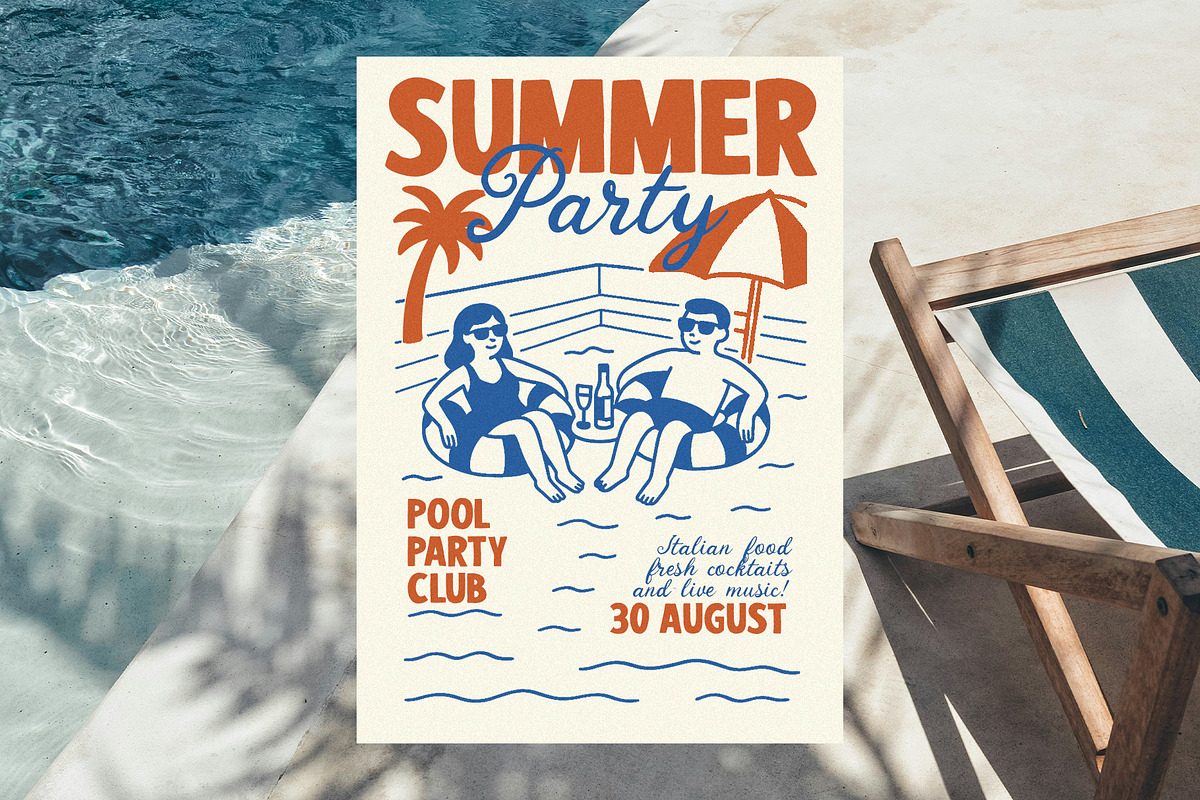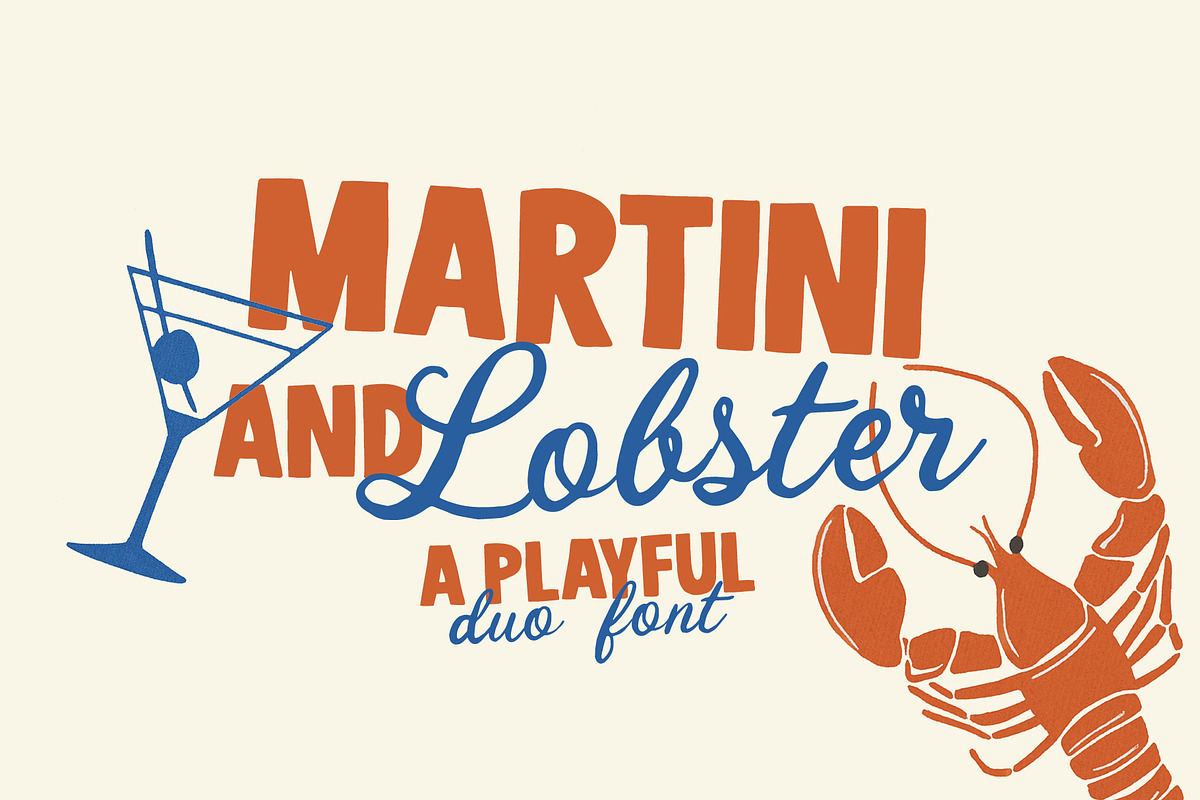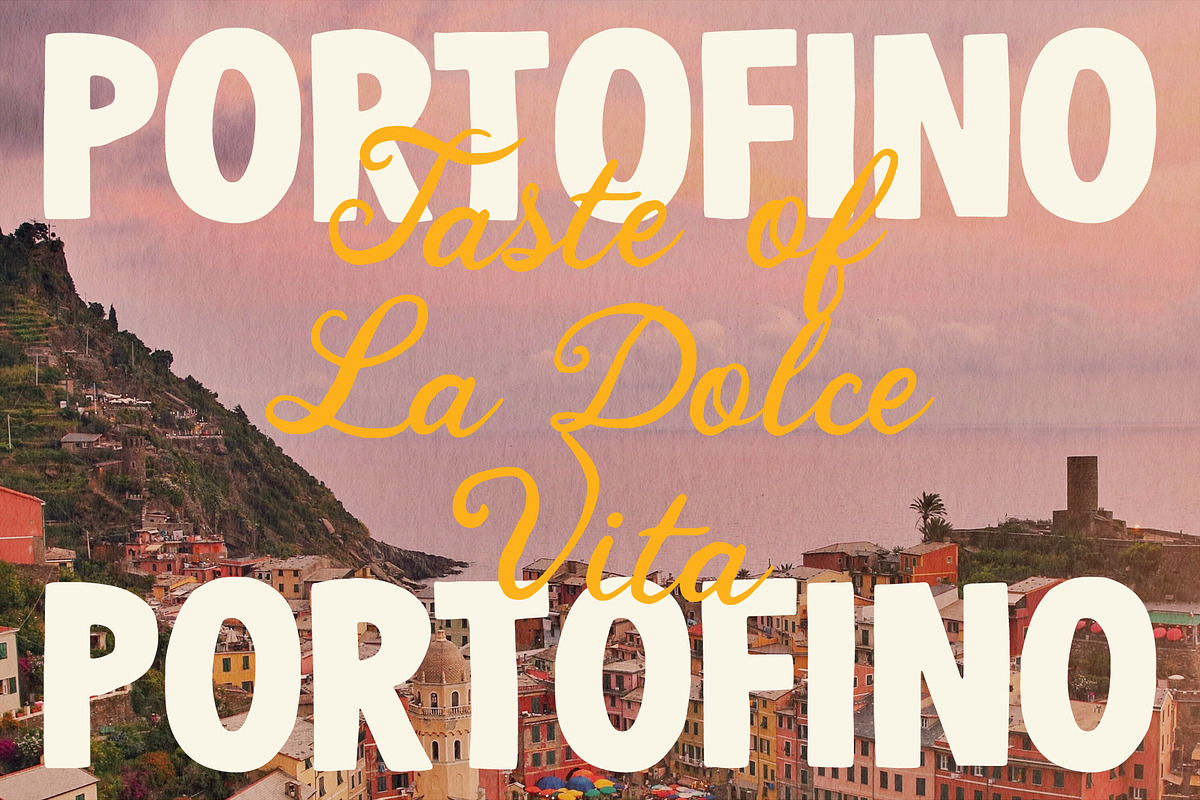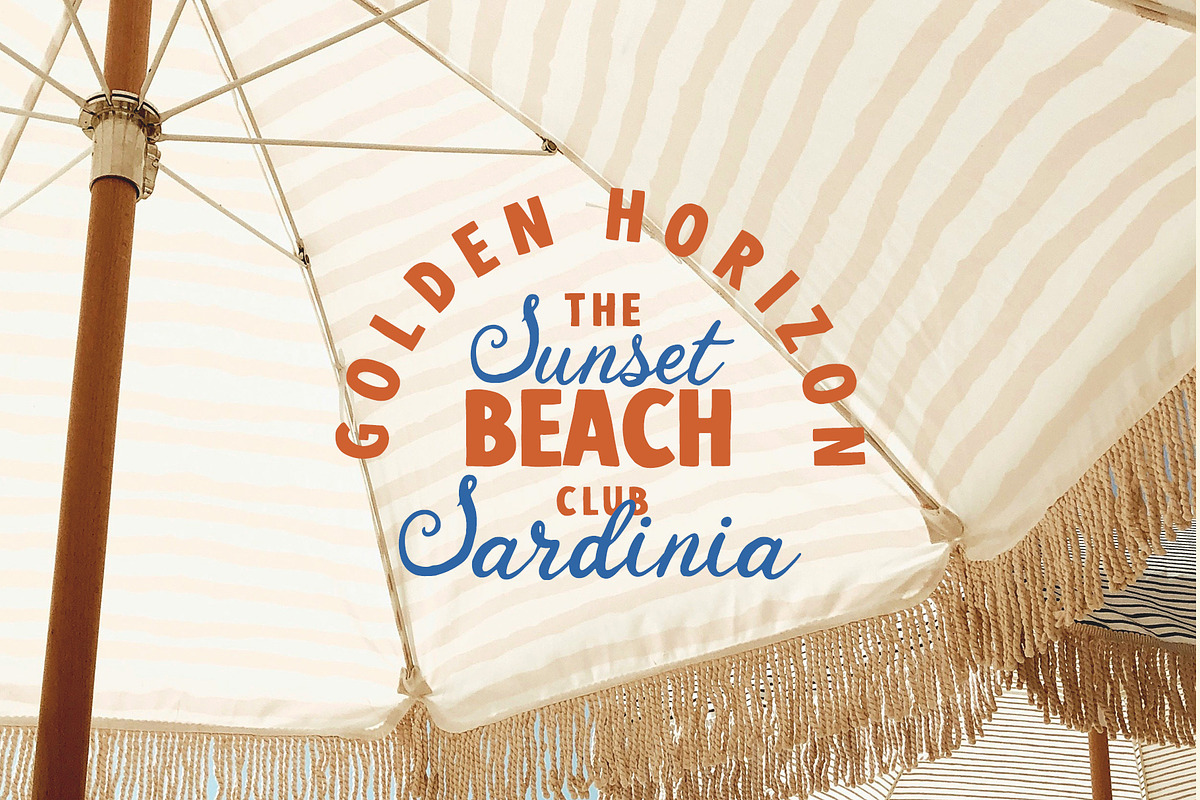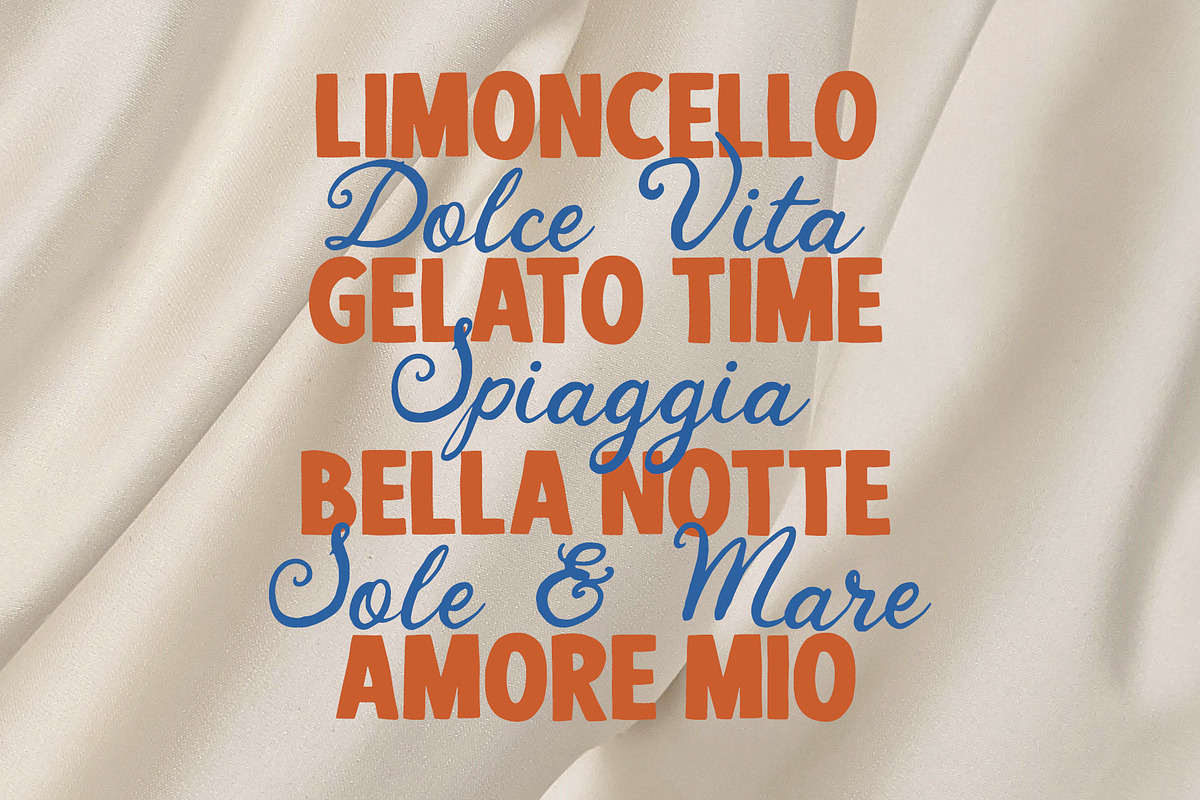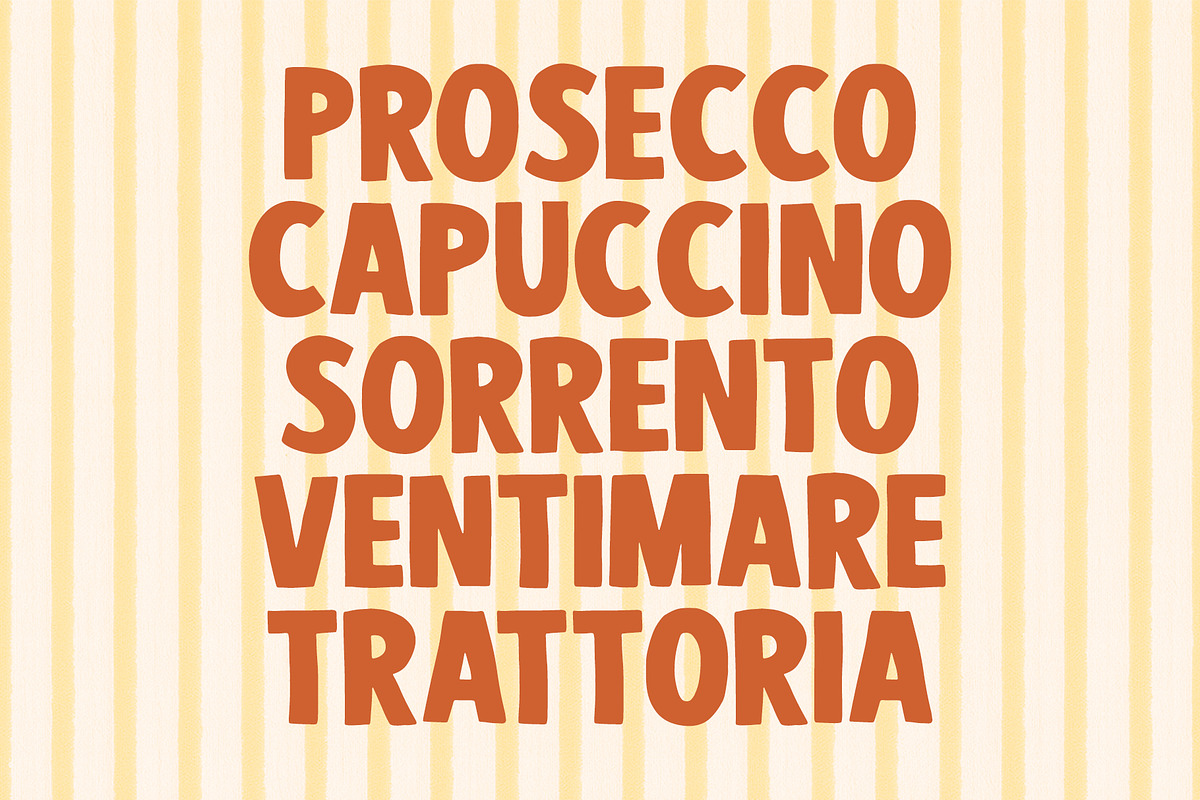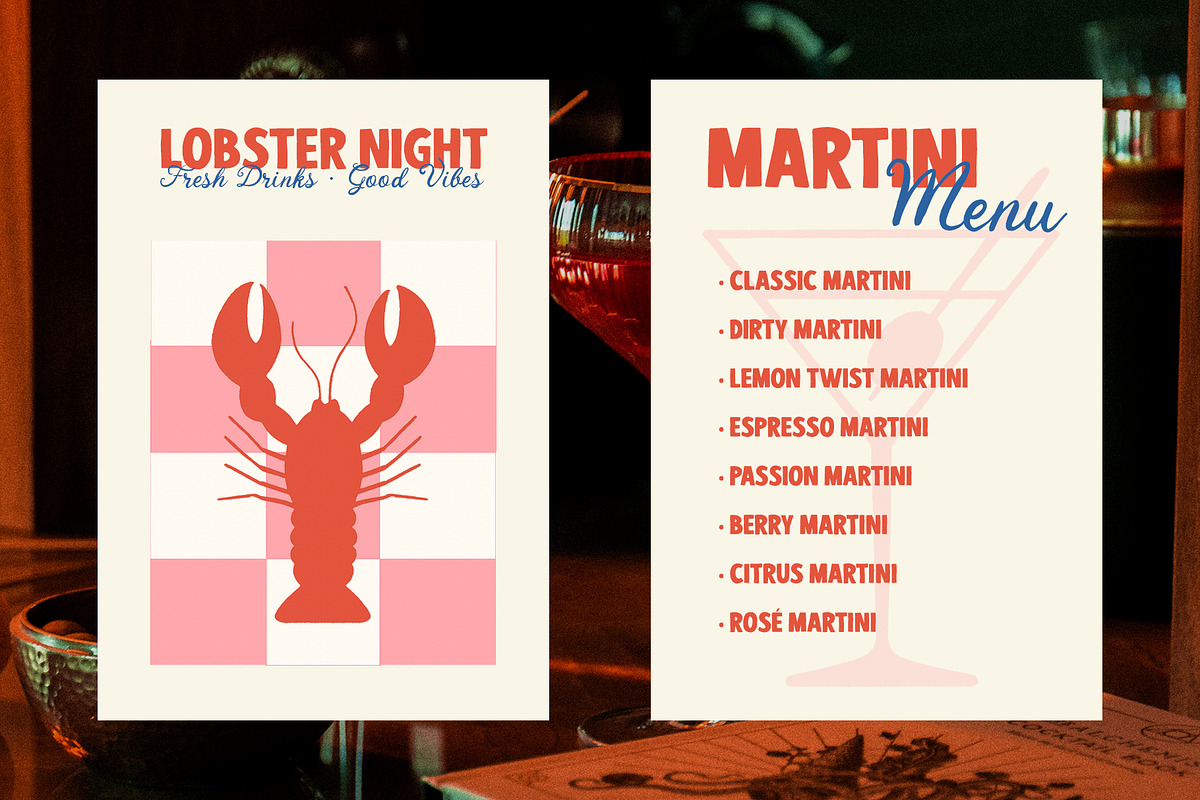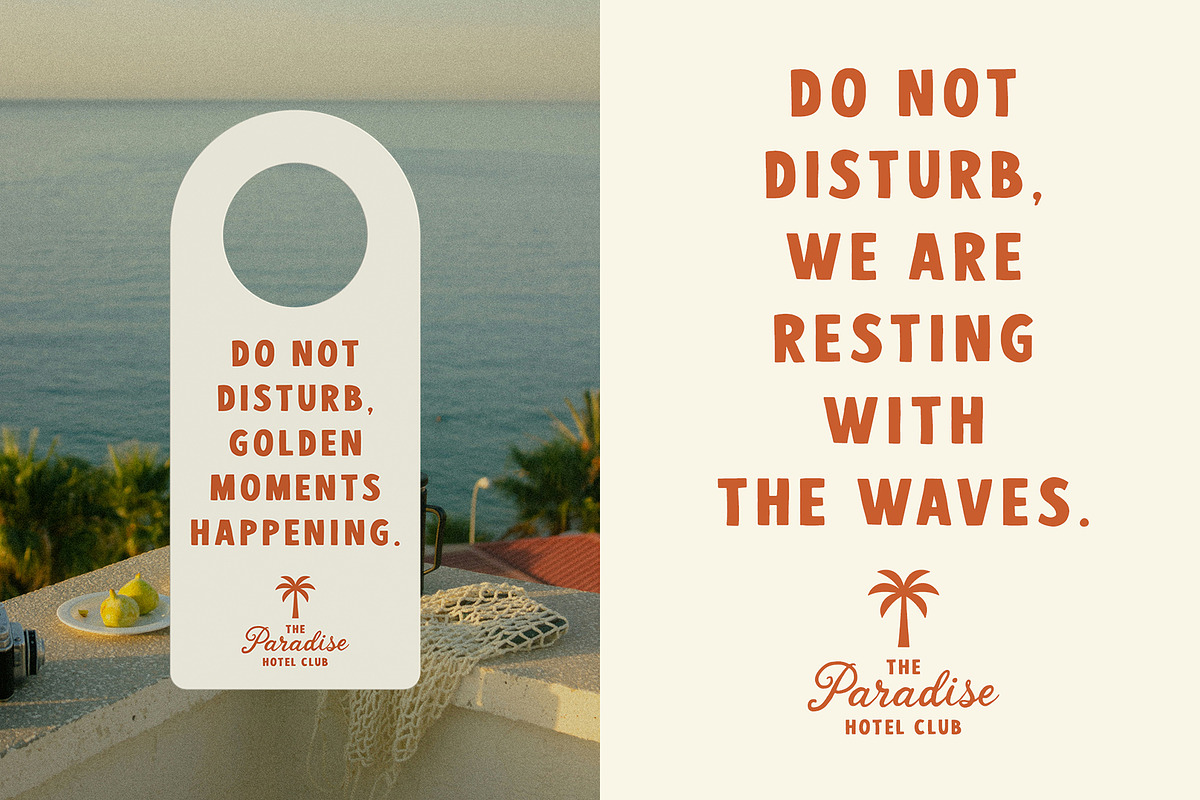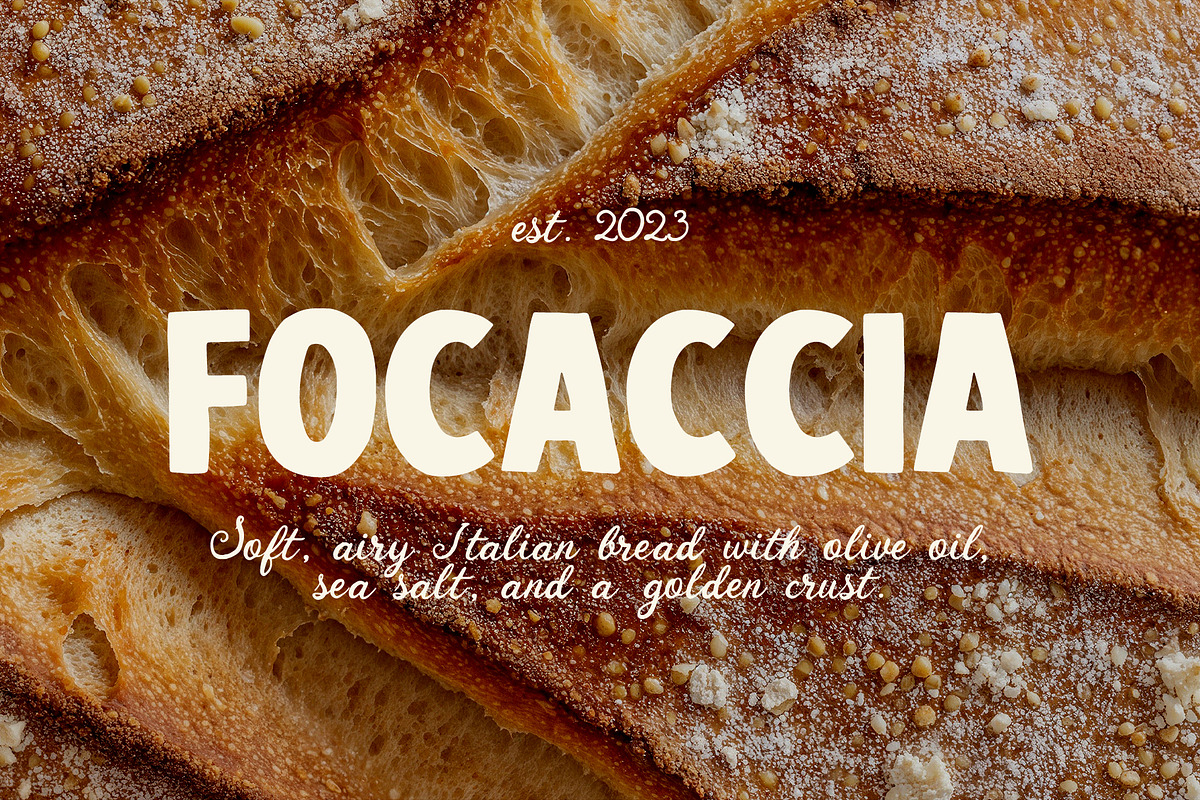
Martini & Lobster playful duo font
Martini & Lobster is a fun and versatile duo font that combines bold retro sans with a smooth handwritten script. This playful pairing brings an instant touch of personality and charm, making it perfect for eye-catching designs with a relaxed, stylish vibe.
With its mix of strong headlines and elegant accents, Martini & Lobster works beautifully for posters, café and bar menus, summer collections, packaging, logos, and social media graphics. Whether you’re designing for hospitality, fashion, or lifestyle projects, this font duo adds a fresh and memorable look. Bring the spirit of cocktails, seaside nights, and vintage flair into your work with Martini & Lobster — a font made to stand out. What’s included:
✨ Perfect for branding, posters, menus, invitations, packaging, and more!